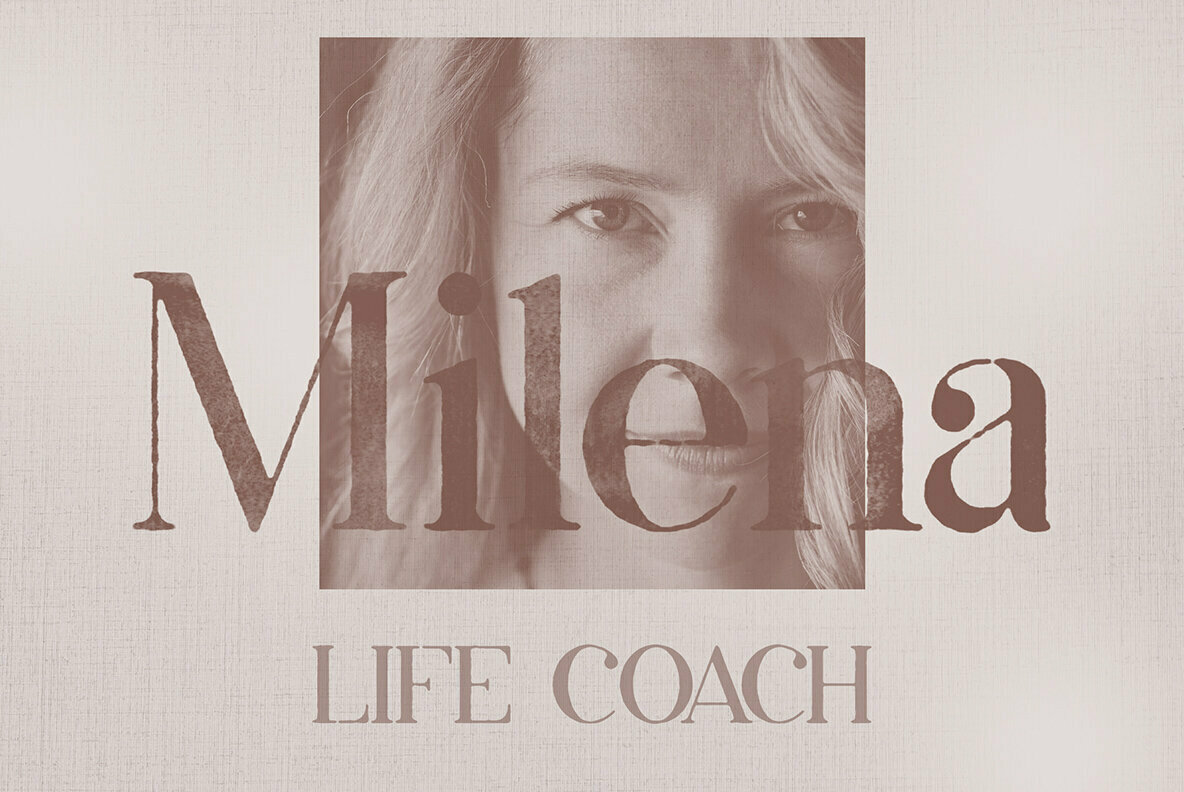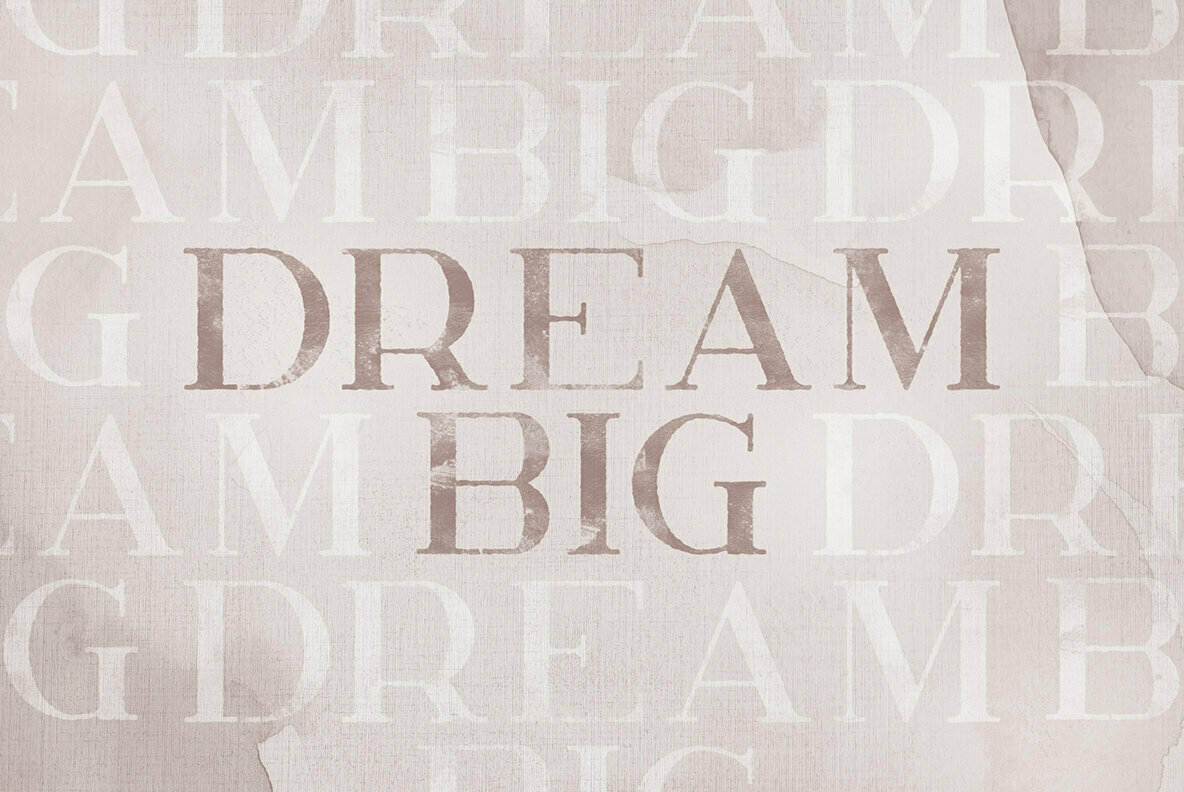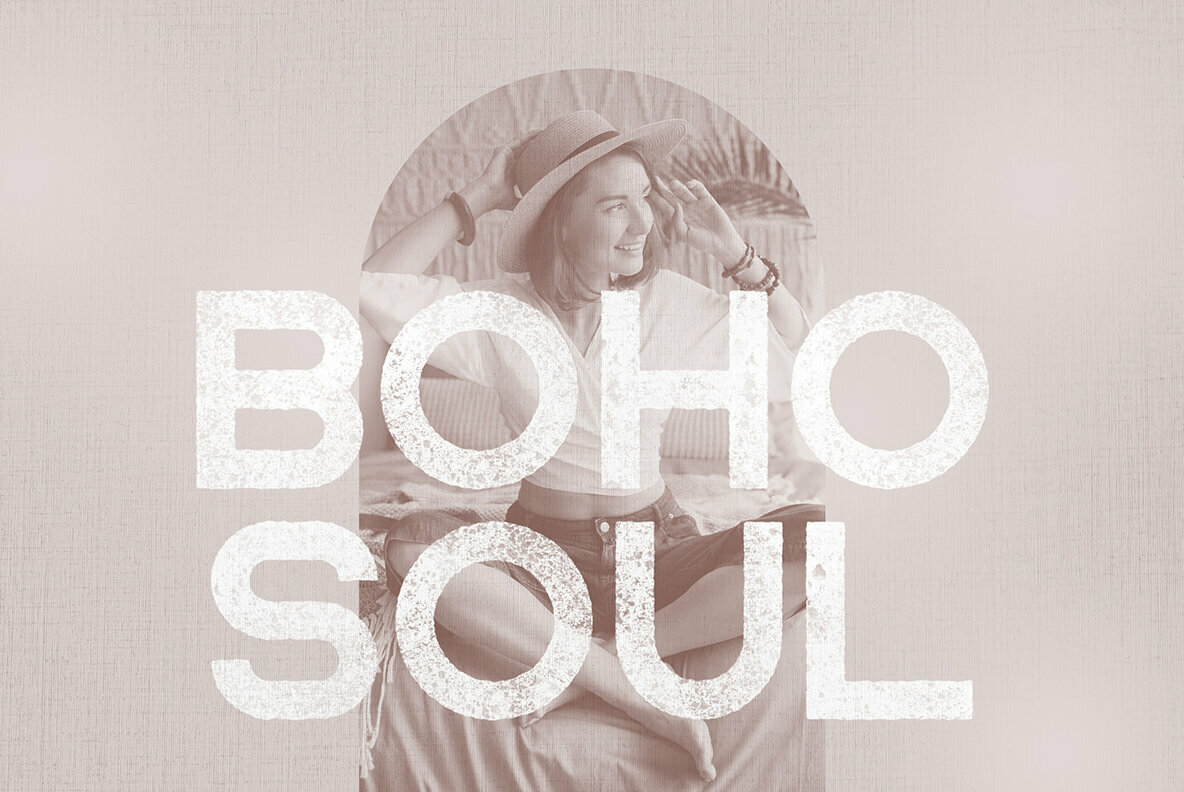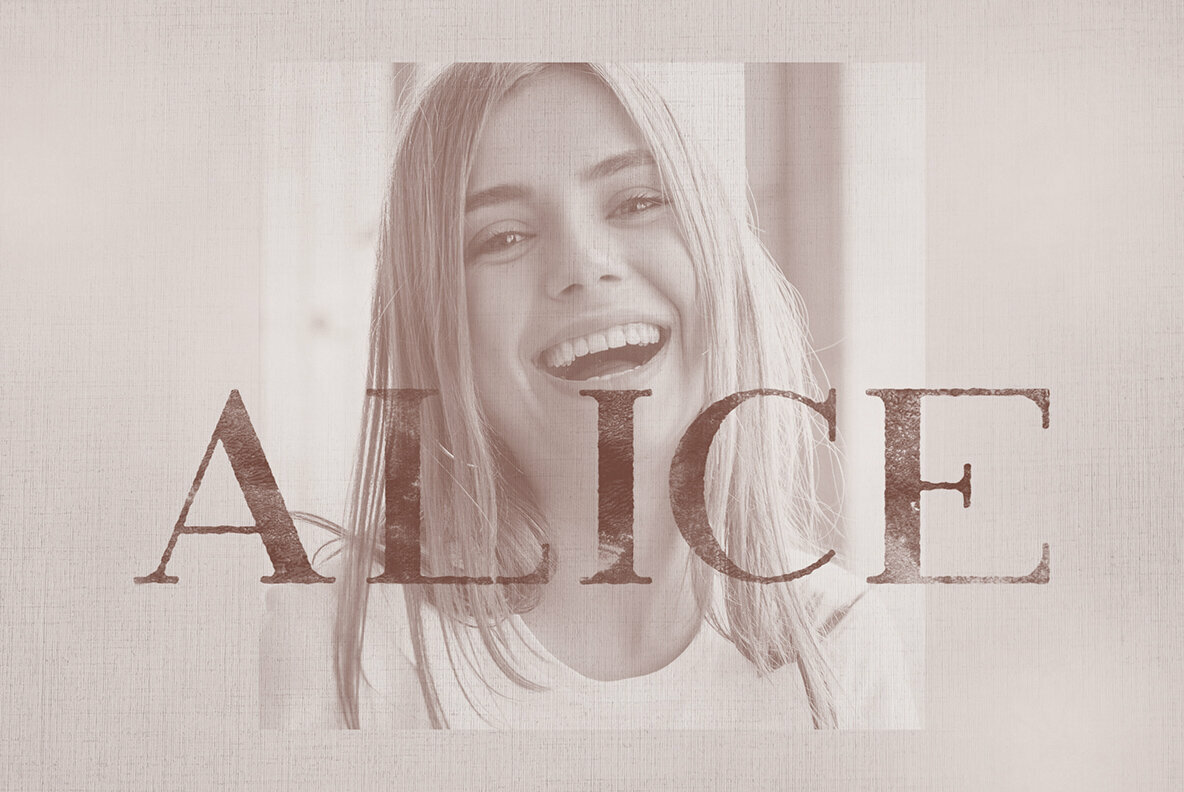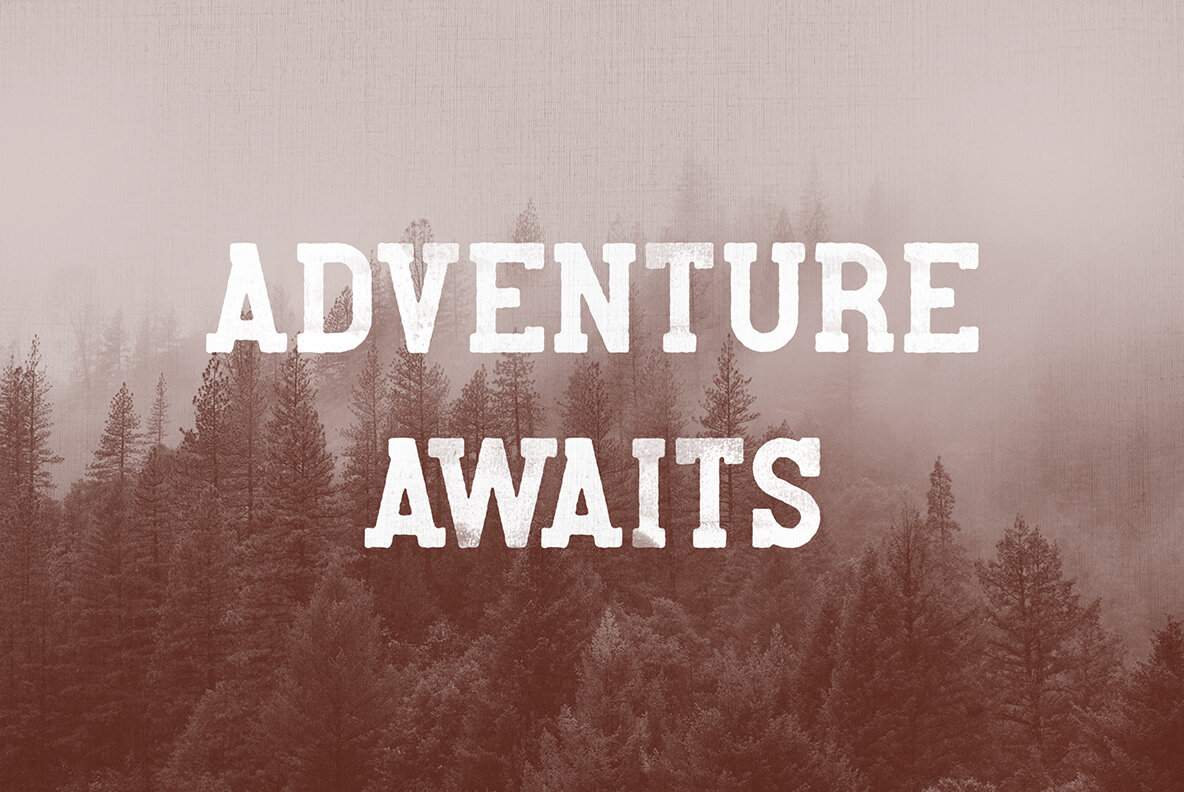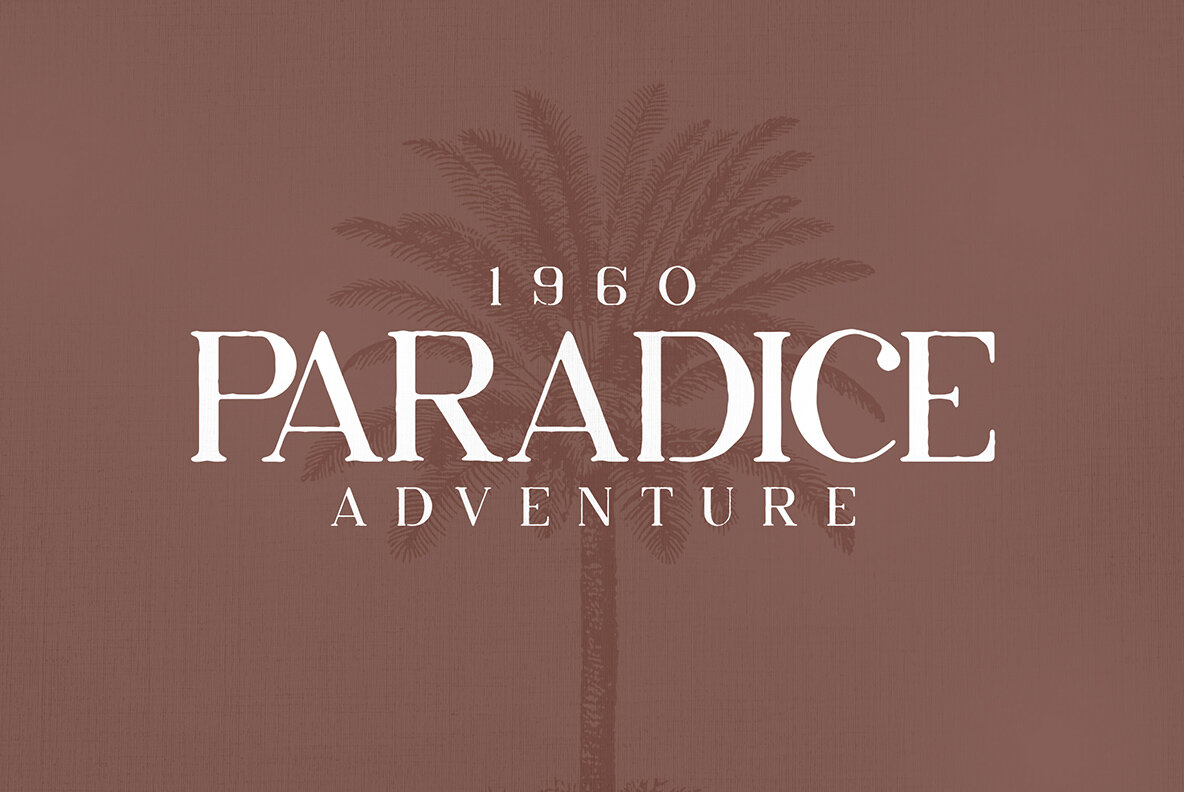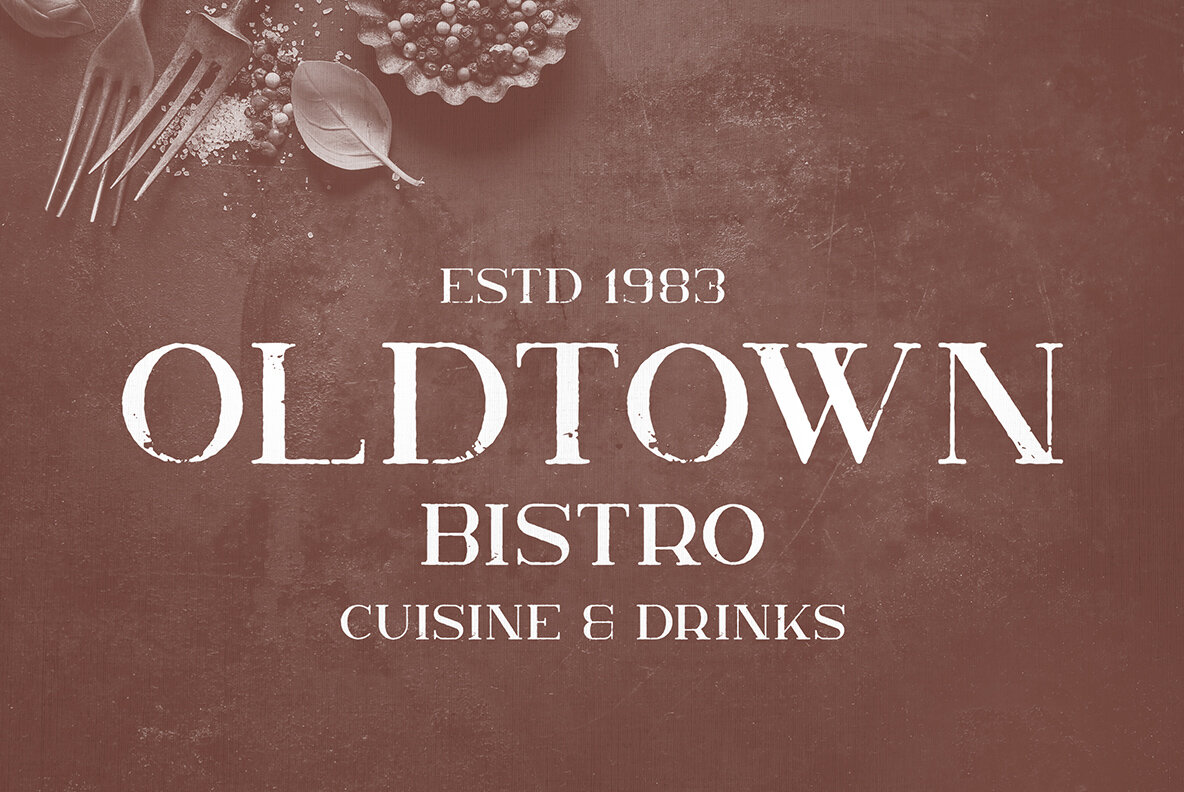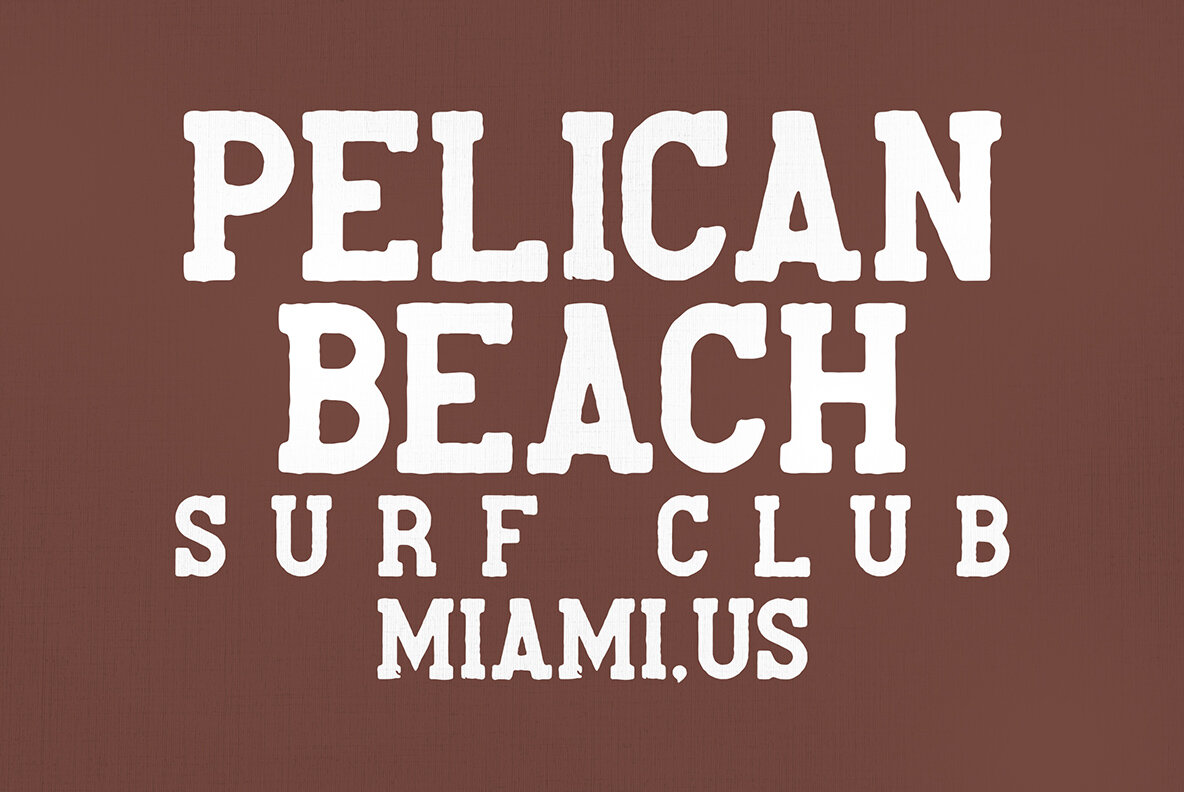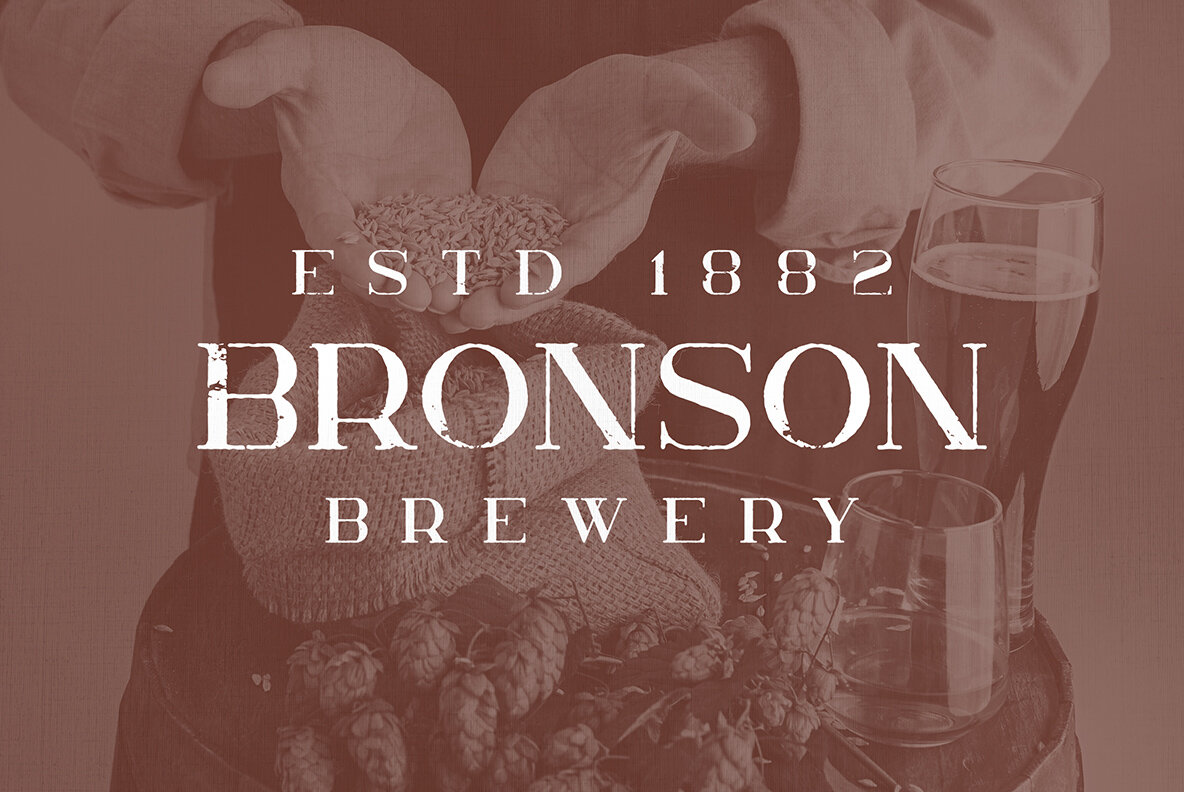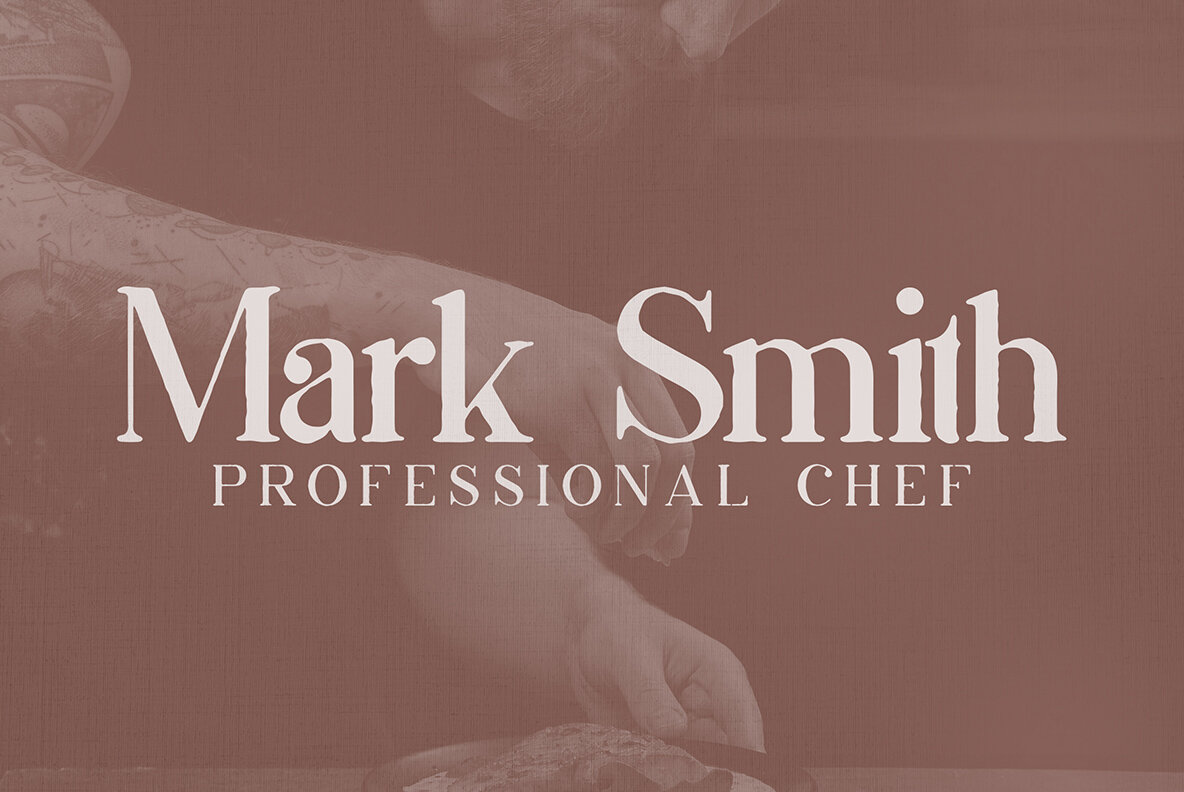
Rough and Color Font Collection Vol.1
Rough and Color bundle is perfect for branding projects, home-ware designs, product packaging, magazine headers - or simply as a stylish text overlay to any background image.
- Uppercase, Lowercase, Numeral, Punctuation & Symbol
- Multilingual support